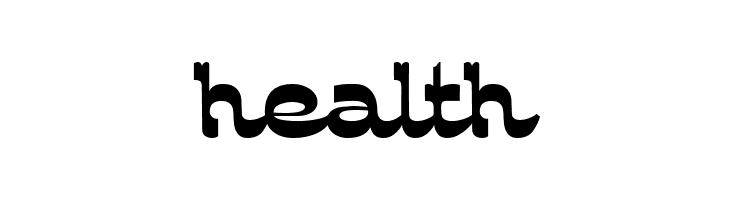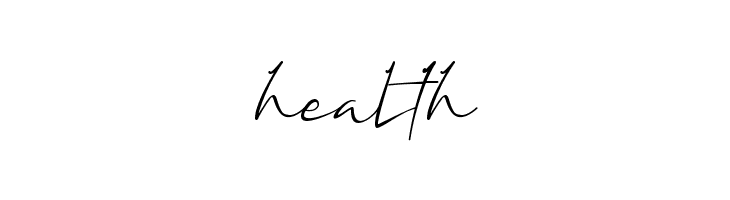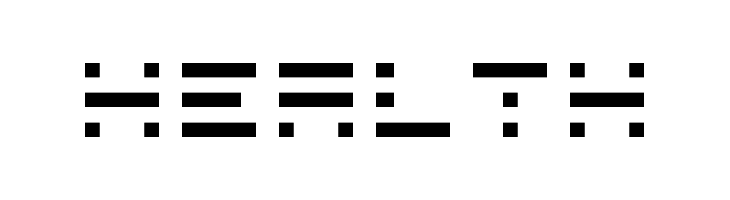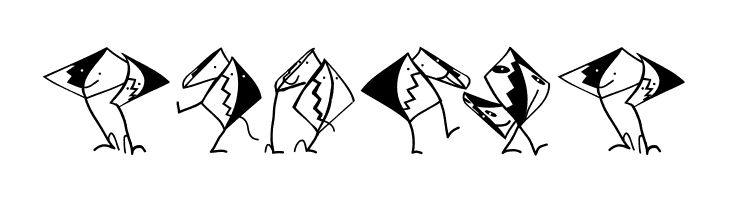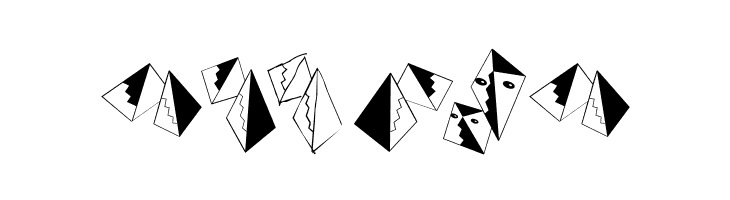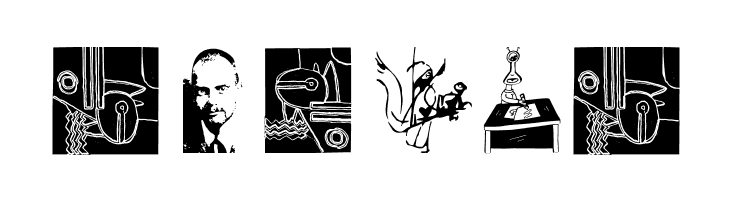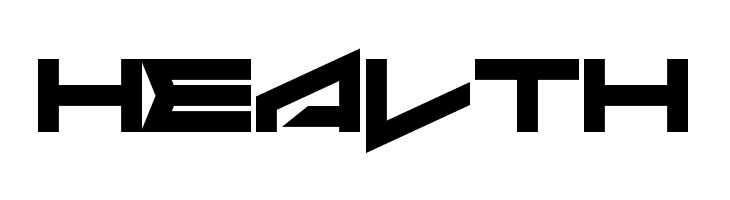
A cursive, handwritten-style font with elegant, flowing strokes.
An abstract, geometric font with intricate patterns and high contrast.
A whimsical, bird-themed decorative font with bold, angular lines and contrasting patterns.
A bold, playful font with wide, rounded characters and a whimsical style.
A whimsical and artistic collection of decorative characters and illustrations.
A futuristic, angular font with bold, geometric shapes.
A minimalist, handwritten-style font with a casual and approachable feel.
A bold, angular blackletter-style font with dramatic strokes and intricate details.
A bold, blackletter-inspired font with sharp, angular lines and intricate detailing.
A bold, geometric font with a digital, pixelated style.